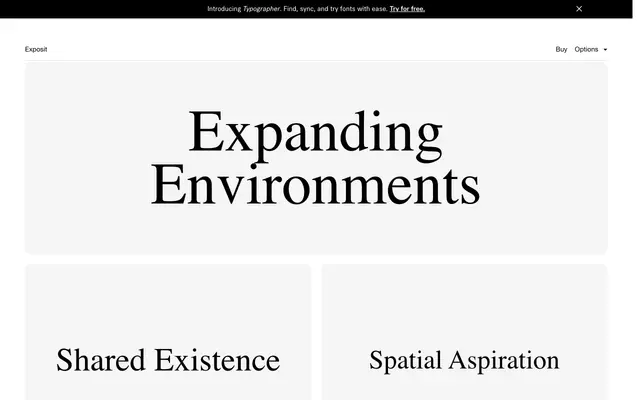
Exposit
A stencil display typeface developed from Joseph A. David's 1876 grid-based lettering system, with interchangeable amplitude, width and stretch settings that shift the tone from calm to turbulent.
Built on the logic of David's 'Plaque Découpée Universelle', Exposit treats its stencil origins as a live design variable rather than a fixed aesthetic. Stroke lengths, letter widths and rounded forms can be adjusted to produce uniform, restrained setting or something far more expressive. The family runs across five weights plus contrasted Positive and Negative styles, backed by an extensive ligature set and three stylistic sets that offer further structural alternatives.
Derived from Joseph A. David's 1876 stencil system 'Plaque Découpée Universelle', Exposit is a display typeface with structural stencil logic and variable letterform expression driven by amplitude, width and stretch parameters.